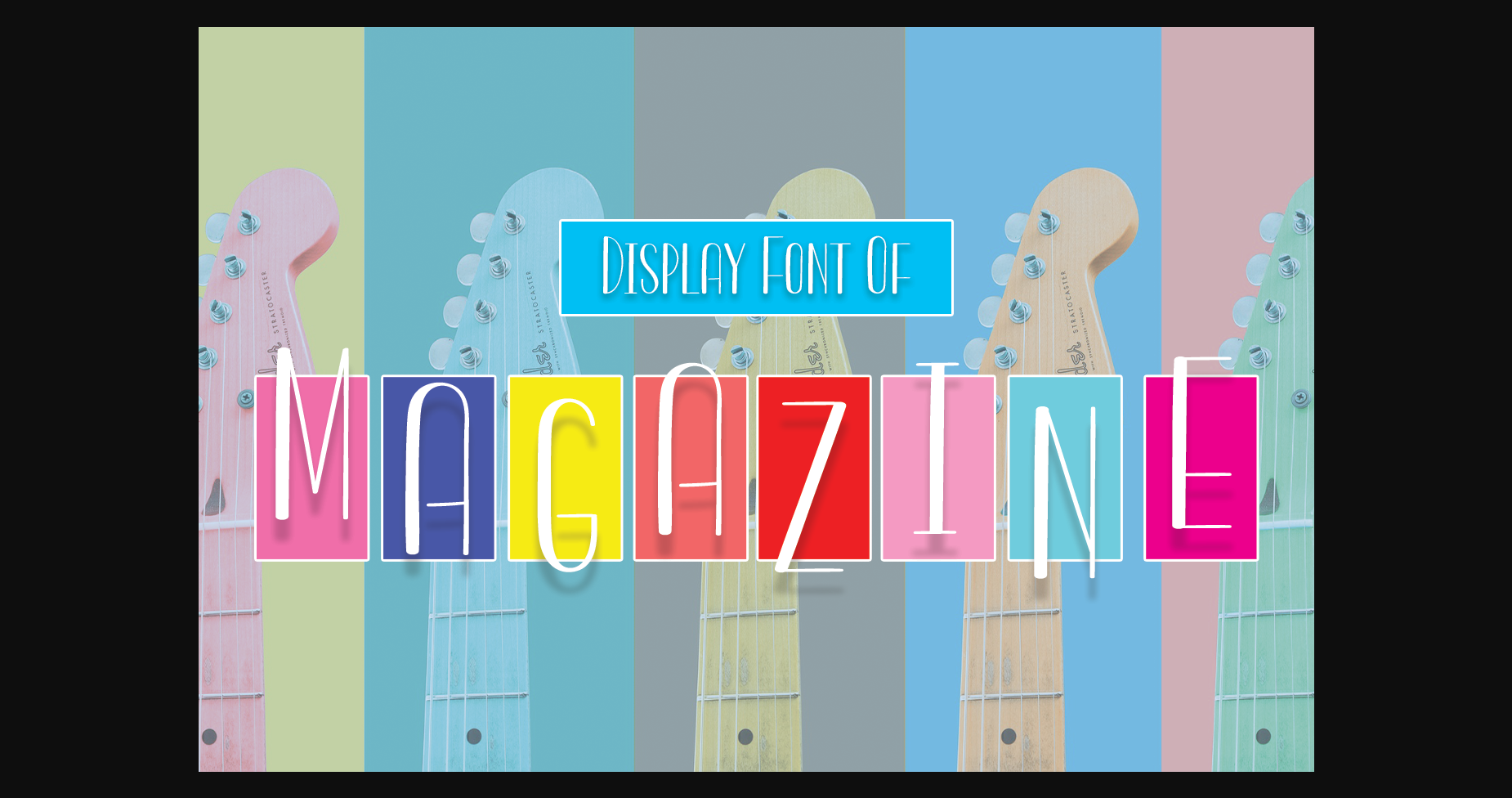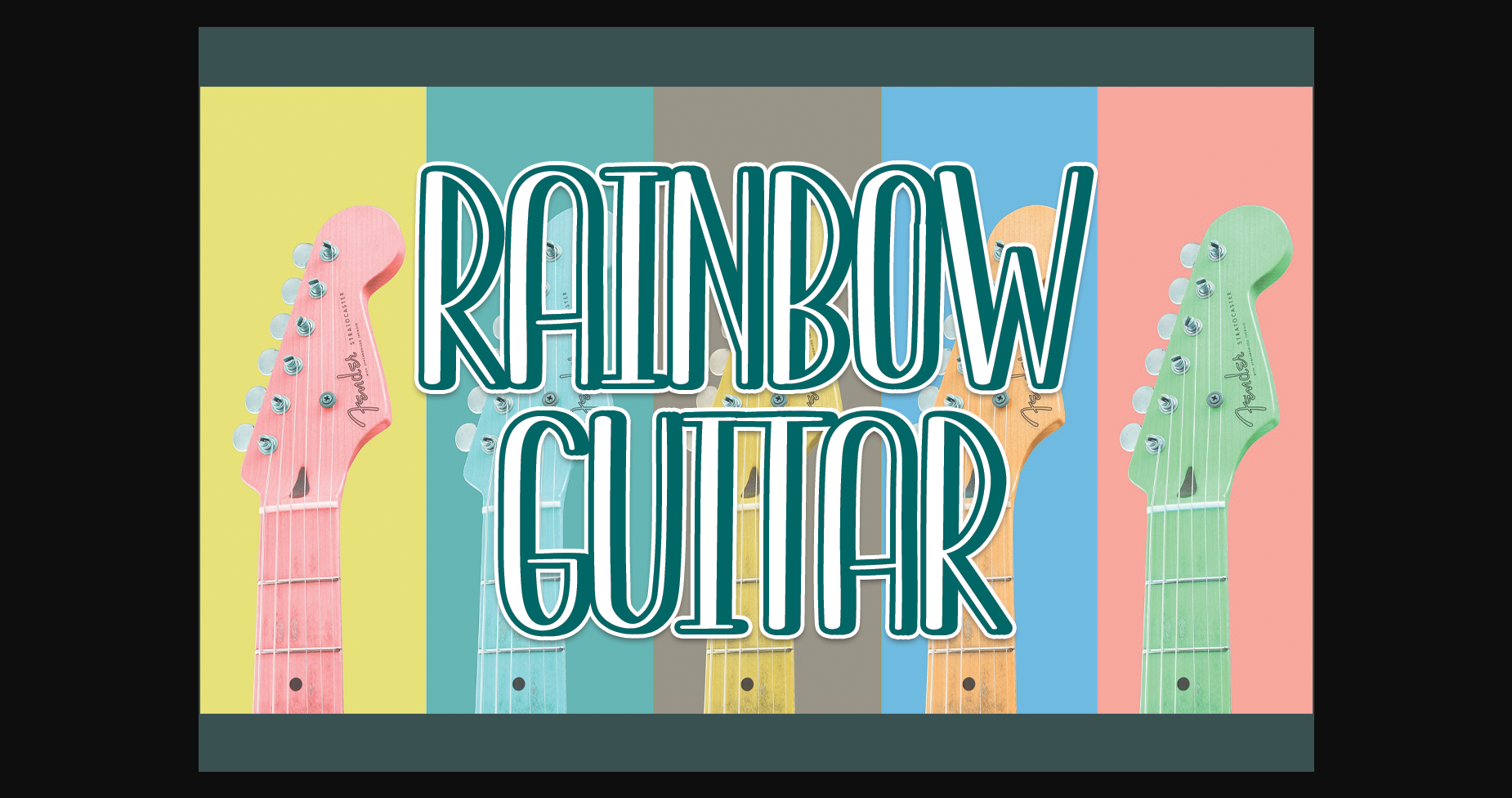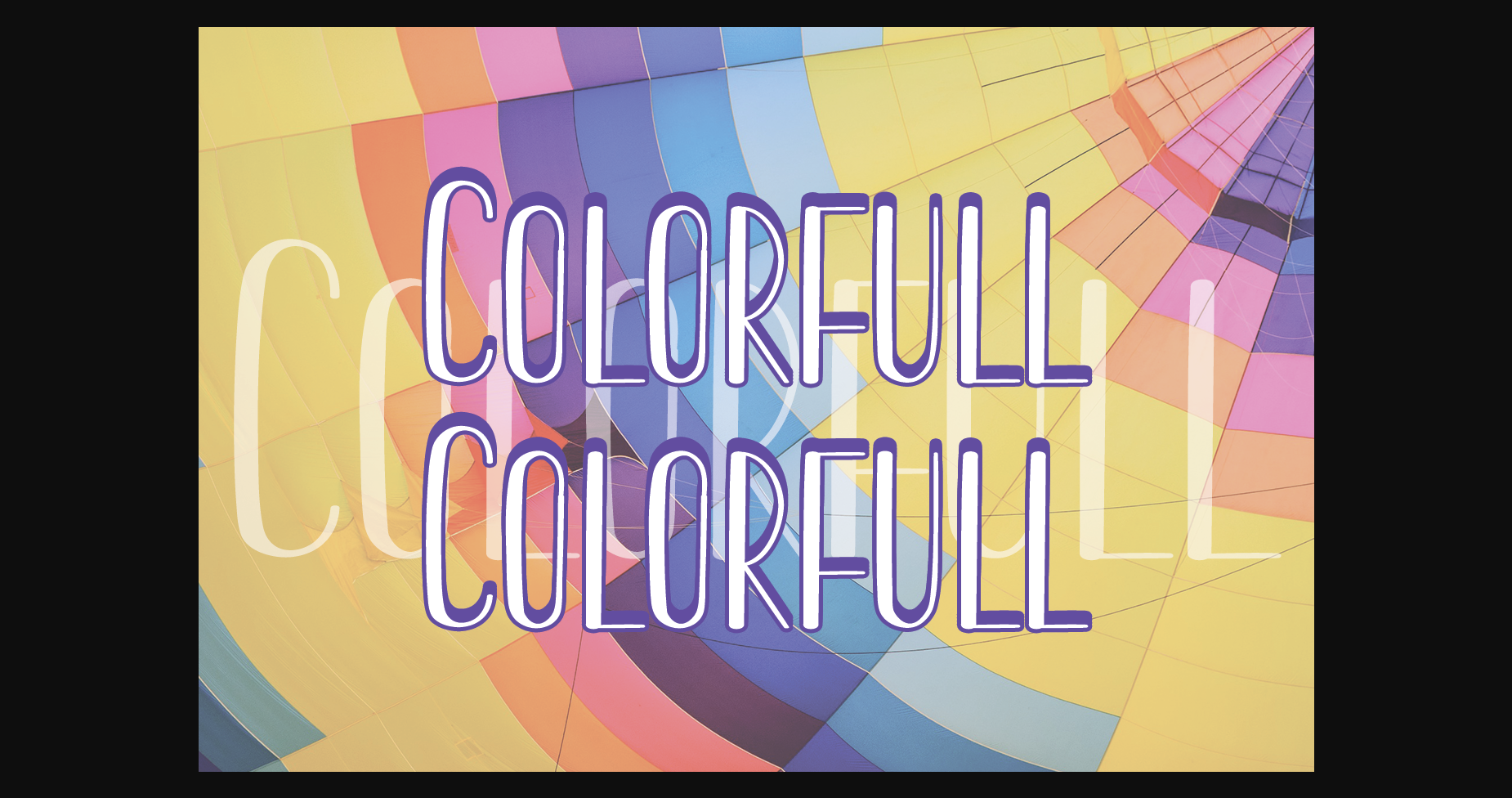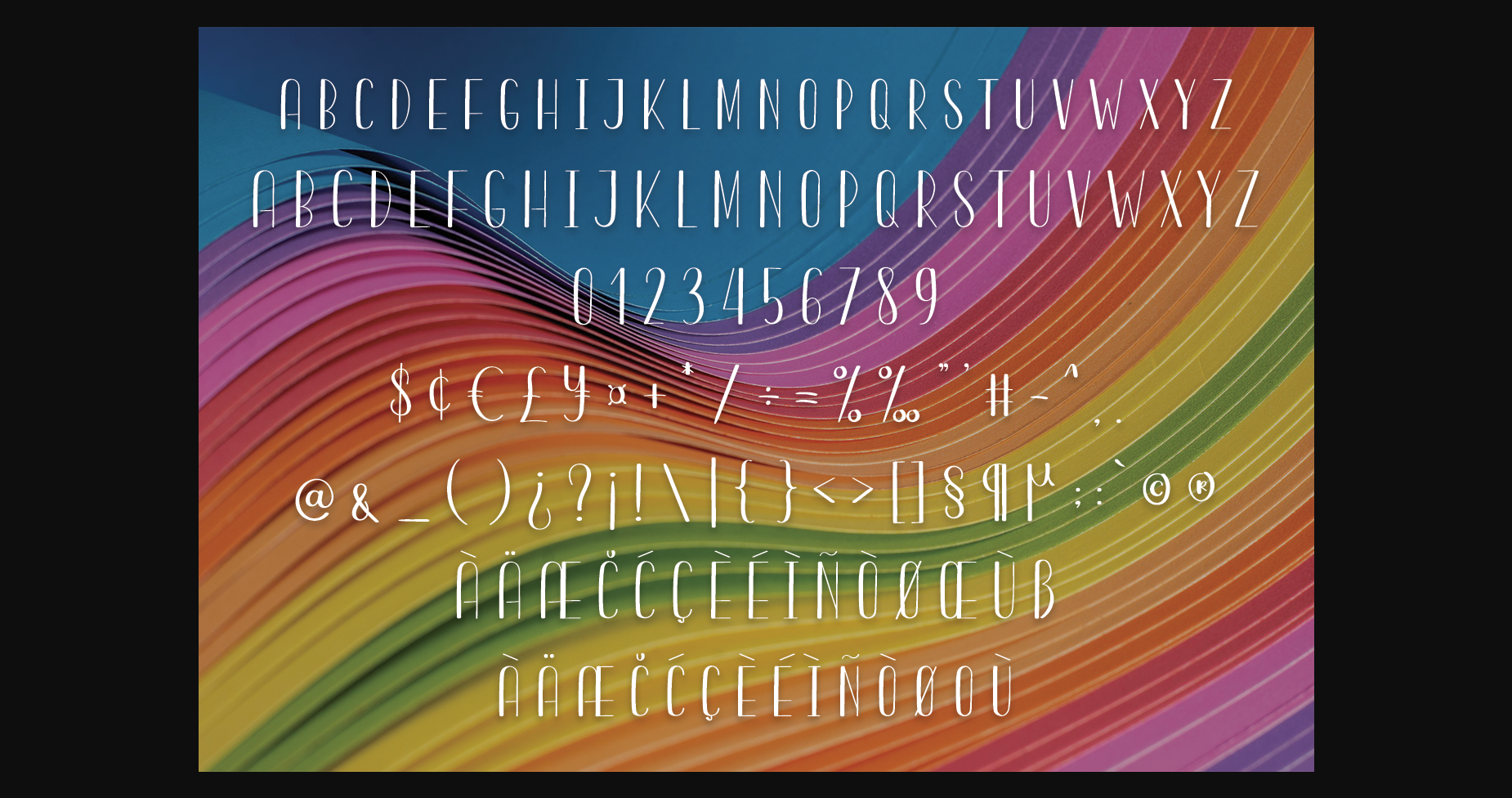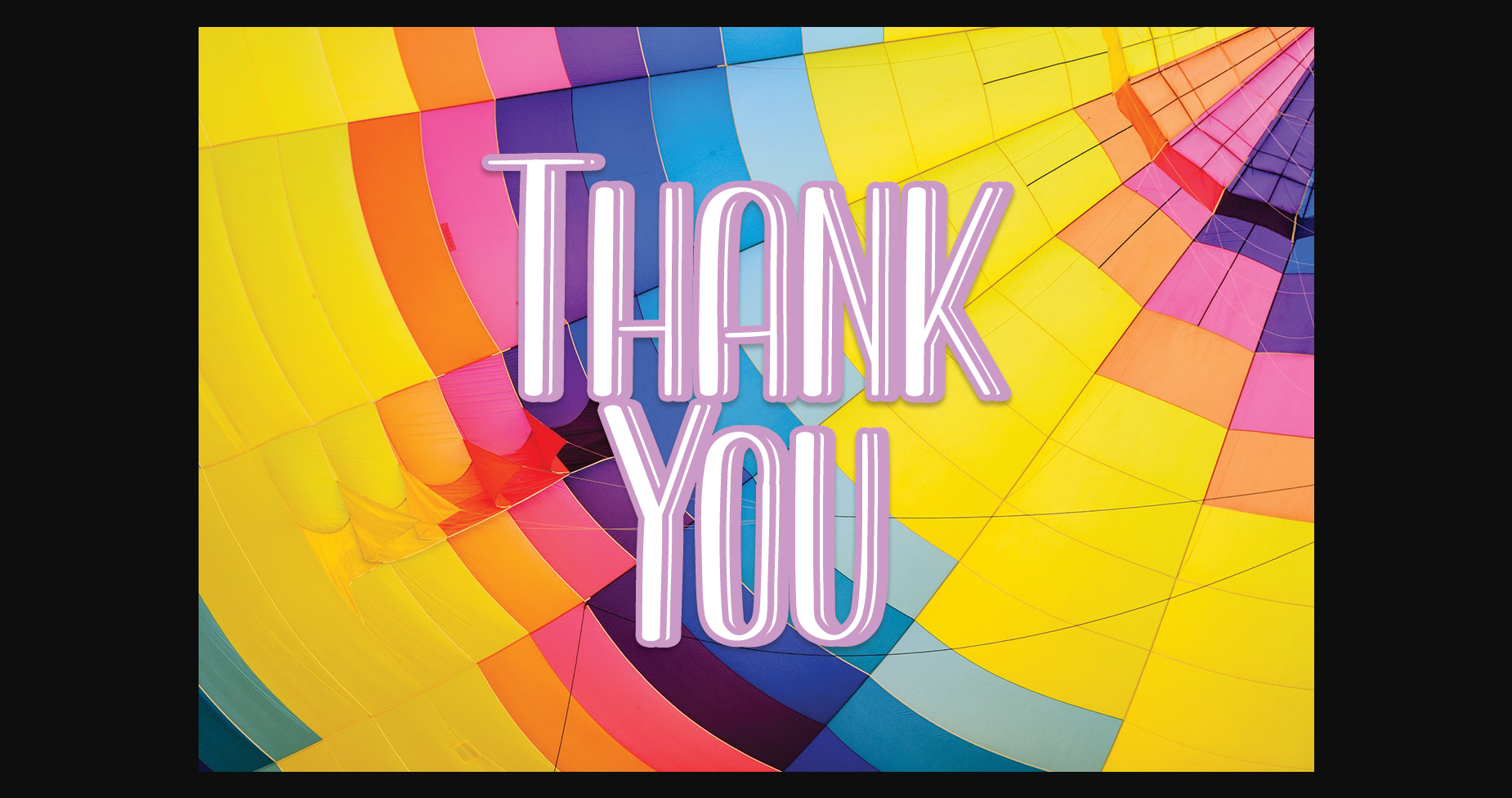
HomeSans Serif FontsMagazine Font Sans Serif Fonts Magazine Font FacebookXPinterestWhatsApp 1 of 7 ... Magazine Font Poster 2... Magazine Font Poster 3... Magazine Font Poster 4... Magazine Font Poster 5... Magazine Font Poster 6... Magazine Font Poster 7... About Magazine Font Magazine is a tall lettered and neat sans serif font. It can easily be matched to an incredibly large set of projects, so add it to your creative ideas and notice how it makes them stand out! DOWNLOAD NOW People also explored Lunarbless Font La Alorta Font Farmhouse Font Love No War Font Eternal Blues Font Watermellon Mr Canfields Voetter Nextart Outline Extra Light Font 282 0 TagsMagazine Font Previous articlePerform Generic FontNext articleVlogger Font LEAVE A REPLY Cancel reply Comment: Please enter your comment! Name:* Please enter your name here Email:* You have entered an incorrect email address! Please enter your email address here Website: Save my name, email, and website in this browser for the next time I comment. Personal Use Free Bashira Personal Use Free Read more about this font Brittish State Personal Use Free Read more about this font Saolice Personal Use Free Read more about this font Delions Personal Use Free Read more about this font BLOG Using Fonts in Digital Marketing: Tips to Strengthen Your Brand Identity In the realm of digital marketing, every visual element plays a crucial role in shaping a brand's identity, and fonts are no exception. The... Transform Your Website: Elevate Your Typography with 7 Best Web Font Generators Best Fonts for T-Shirt Design – Top 2025 Picks Top 7 Google Fonts Alternatives for Faster and Privacy-Friendly Web Design (2025)